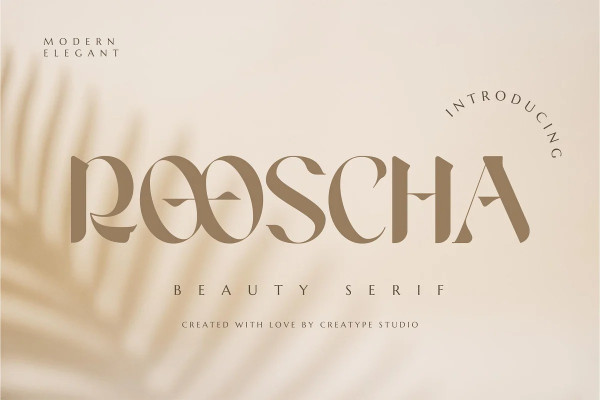
Rooscha Font
Rooscha Font, the beauty-inspired serif typeface that captures the feminine spirit of your brand with exquisite grace.
Rooscha is perfect for branding projects, logos, wedding designs, social media posts, advertisements, product packaging, product designs, label, photography, watermark, invitation, stationery, and any projects that need handwriting taste.